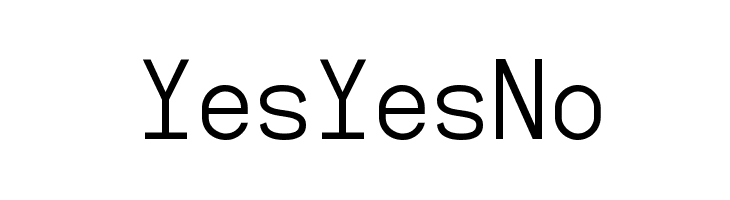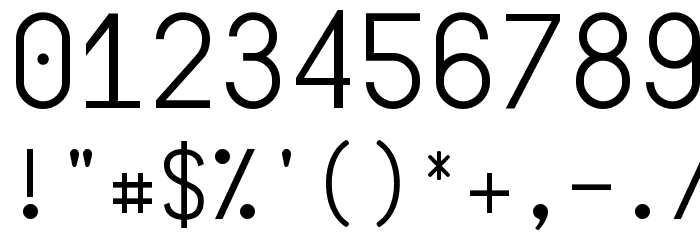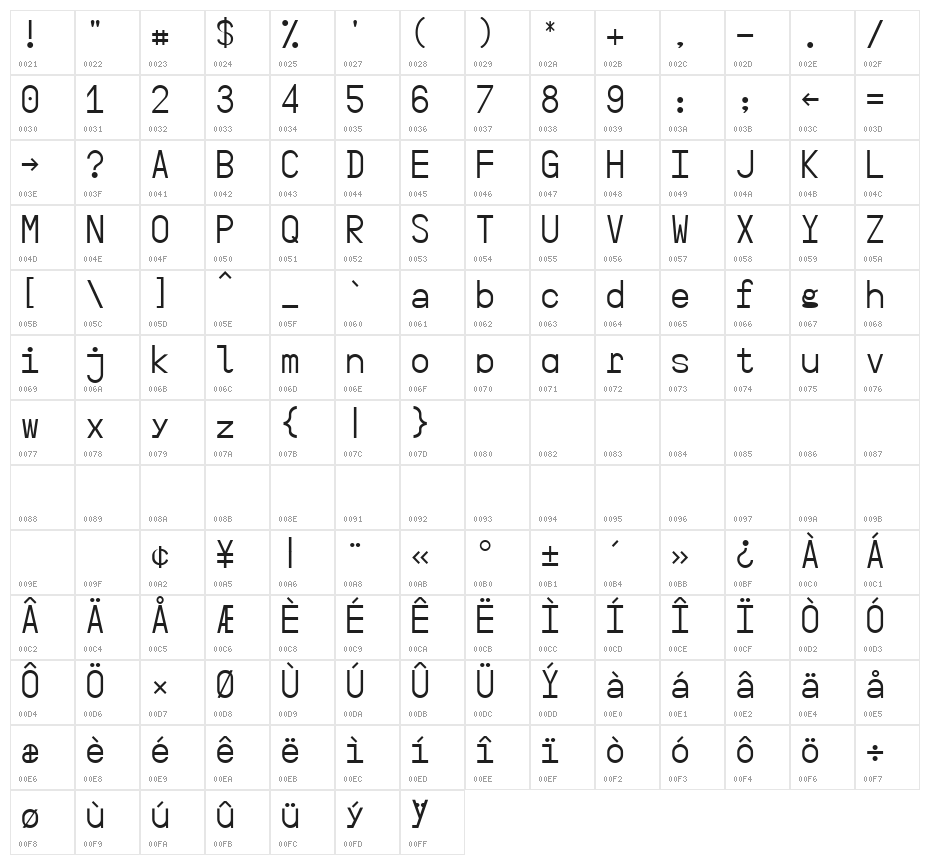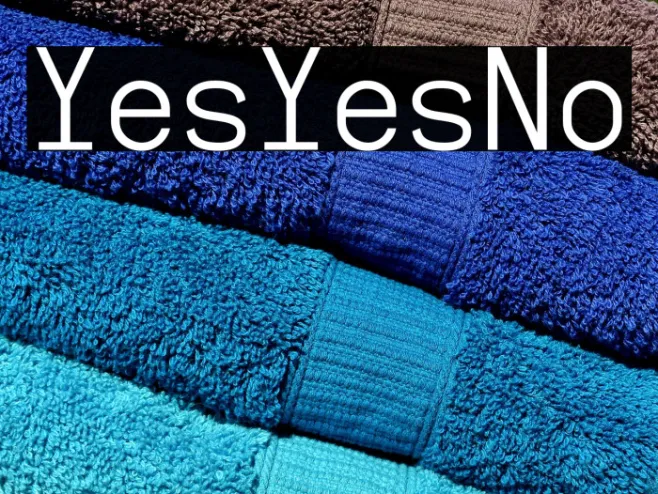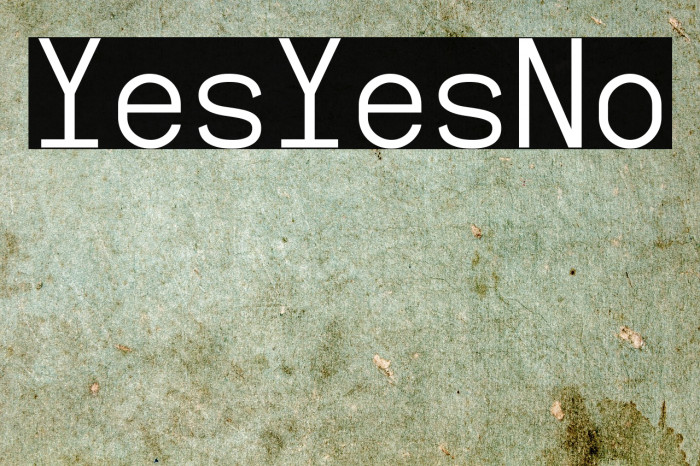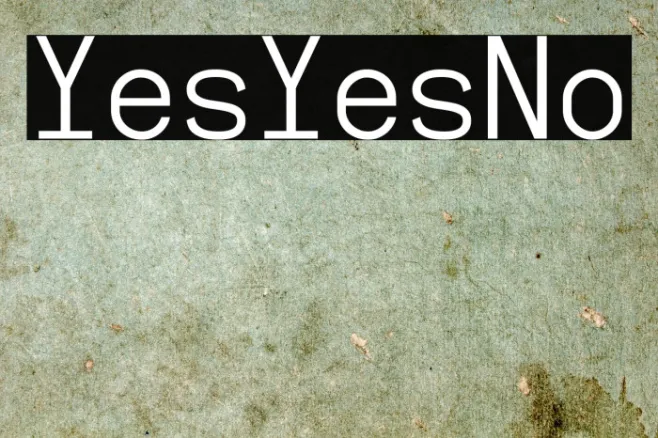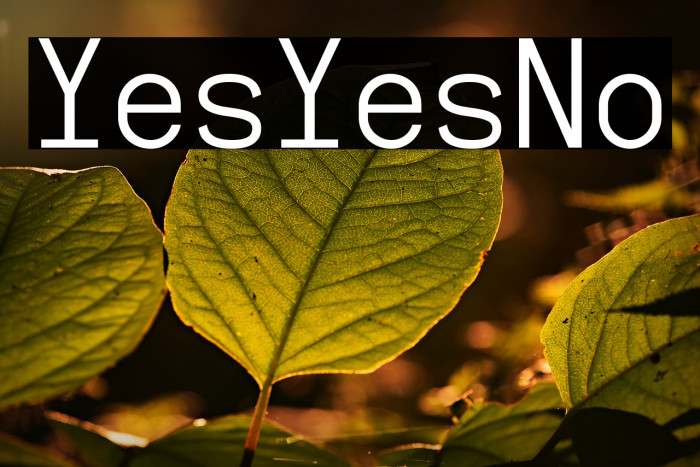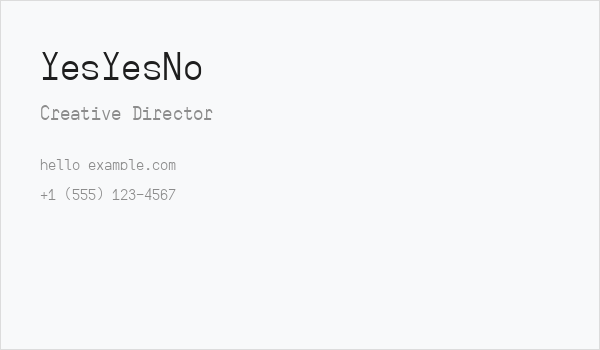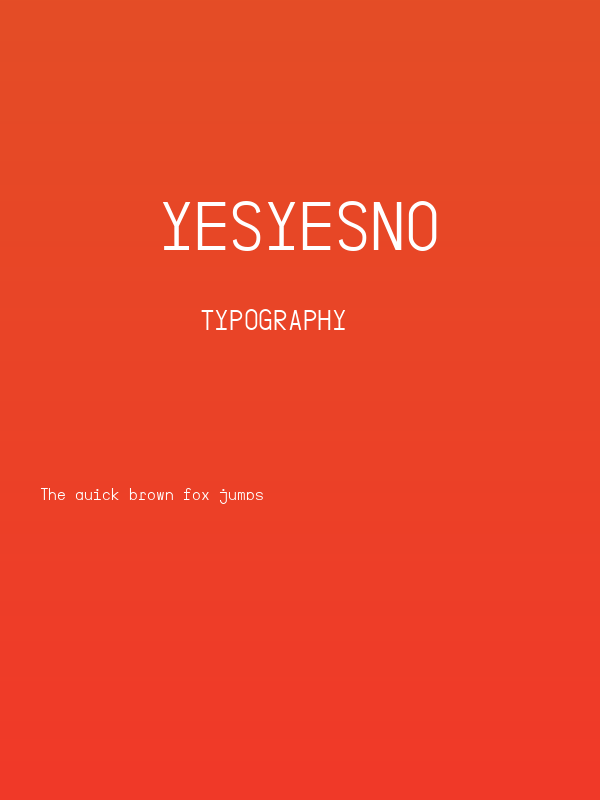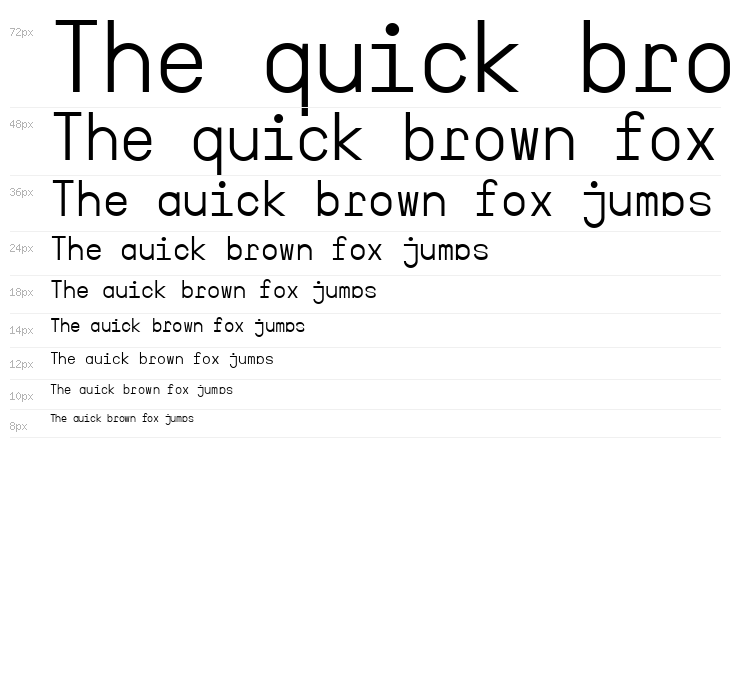
YesYesNo Font
YesYesNo Description
This font exhibits a clean and modern sans-serif style, characterized by its geometric shapes and uniform stroke widths. The uppercase and lowercase letters maintain a consistent height, contributing to a balanced and harmonious appearance. The numerals are clear and easily distinguishable, making them suitable for various applications. Special characters are well-integrated, ensuring versatility in design. The overall aesthetic is minimalistic, with a focus on readability and simplicity, making it ideal for contemporary projects.
| Proposed Projects | Ideal for digital interfaces, branding, signage, and editorial design where clarity and modernity are essential. |